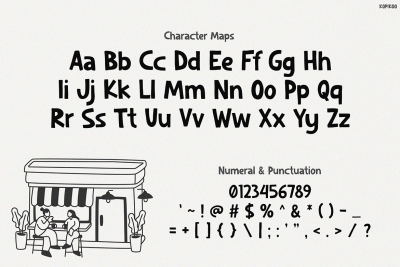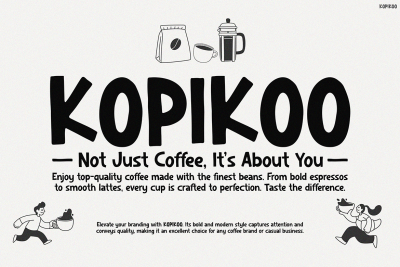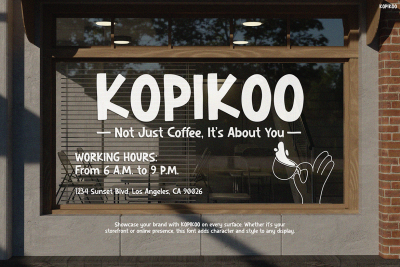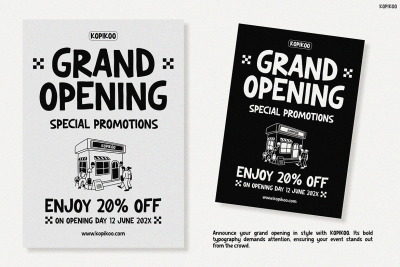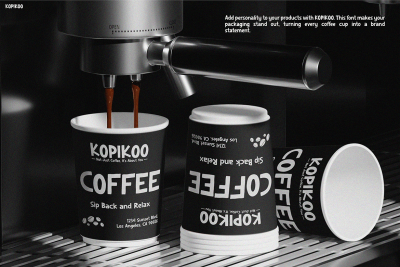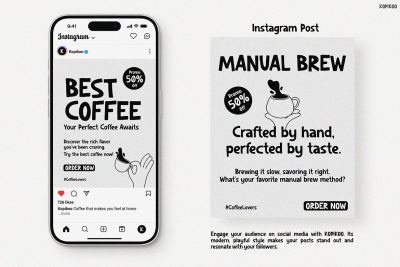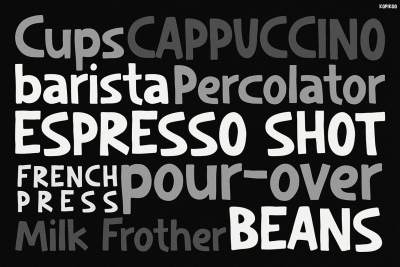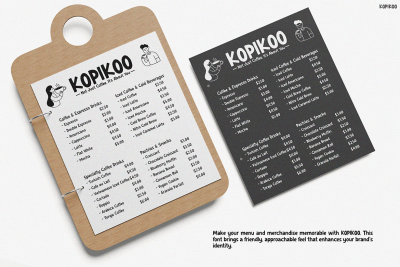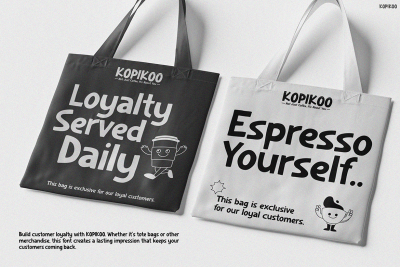
Kids Font KOPIKOO is a playful, bold, and attention-grabbing typeface that brings joy and personality to any design. With its chunky curves and hand-drawn look, KOPIKOO exudes warmth, friendliness, and authenticity. This font is perfect for creating a cozy and fun vibe, whether itโs for coffee cups, storefronts, or product packaging. Its bold and legible letters make it ideal for display purposes, while the quirky letterforms add character to any visual. Not just visually striking, Kids Font KOPIKOO is highly versatileโit seamlessly balances charm and clarity, making it stand out without overwhelming your design.
The charm of KOPIKOO lies in its organic, slightly imperfect strokes that mimic a child’s playful doodle. However, the clever design ensures it maintains readability at all sizes. The letters feel alive, inviting readers to feel more connected to the brand or message. Used on signage, cups, or digital banners, this font turns every surface into a memorable brand statement. Because it fuses aesthetic appeal with practicality, KOPIKOO isnโt just a fontโitโs a voice for fun, relaxed, and people-first branding.
Kids Font KOPIKOO is perfect for business owners, designers, and content creators who want to inject personality into their visuals. It works especially well for coffee shops, kid-friendly brands, eco-friendly packaging, boutique stores, and playful product labels. Its casual yet confident style makes it a great match for creative professionals who want to stand out with warmth and style.
If you’re designing for childrenโs products, educational content, or fun marketing campaigns, KOPIKOO provides a delightful aesthetic that speaks directly to your audience. Itโs also ideal for logo designers and illustrators who need a font that complements hand-drawn artwork or custom visuals.
Bring your branding to life with Kids Font KOPIKOOโa font that speaks fun, friendliness, and authenticity. Whether youโre launching a product or refreshing your visual identity, KOPIKOO helps you create a lasting impression. Add it to your design toolkit and turn simple messages into eye-catching statements.